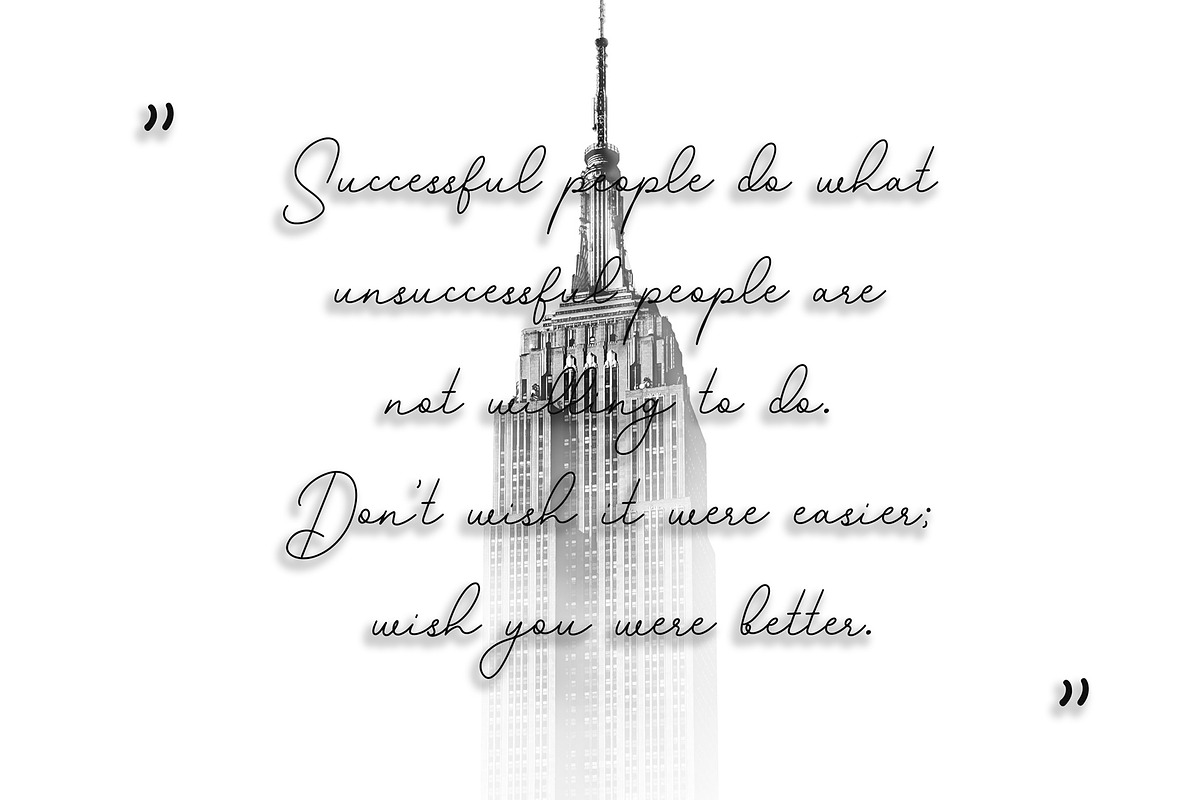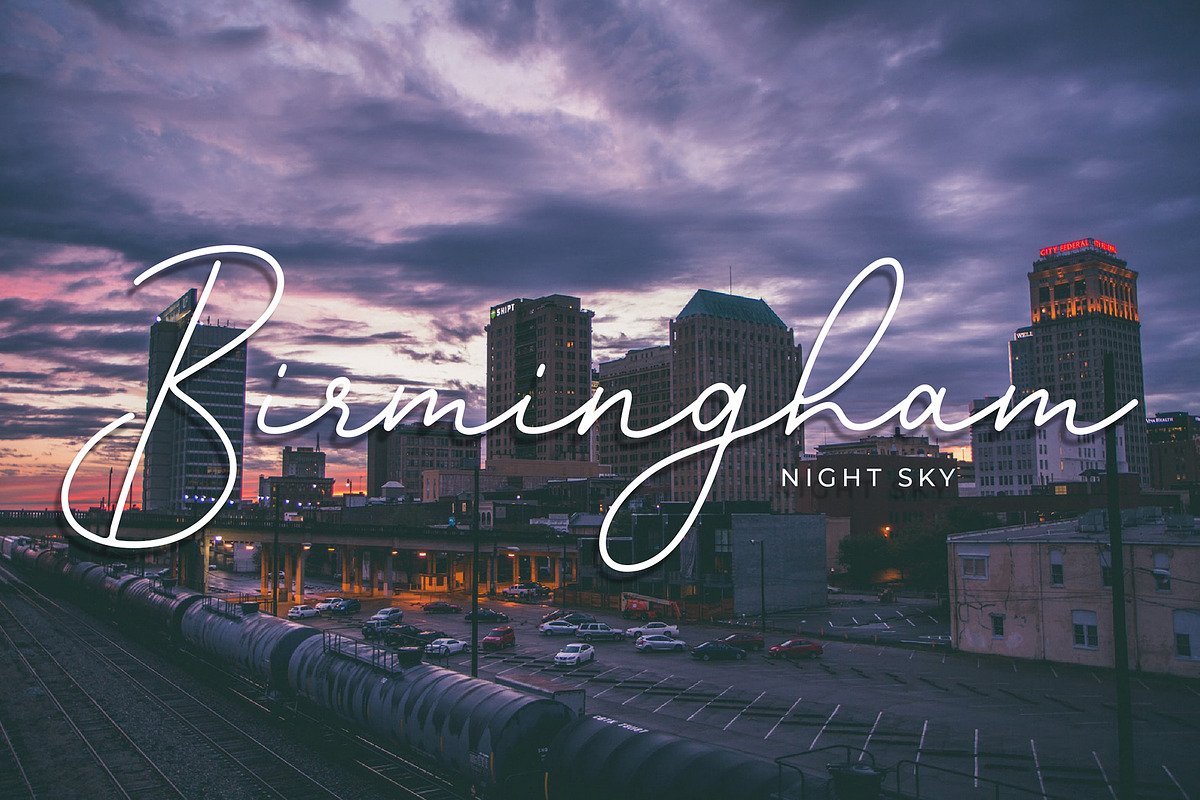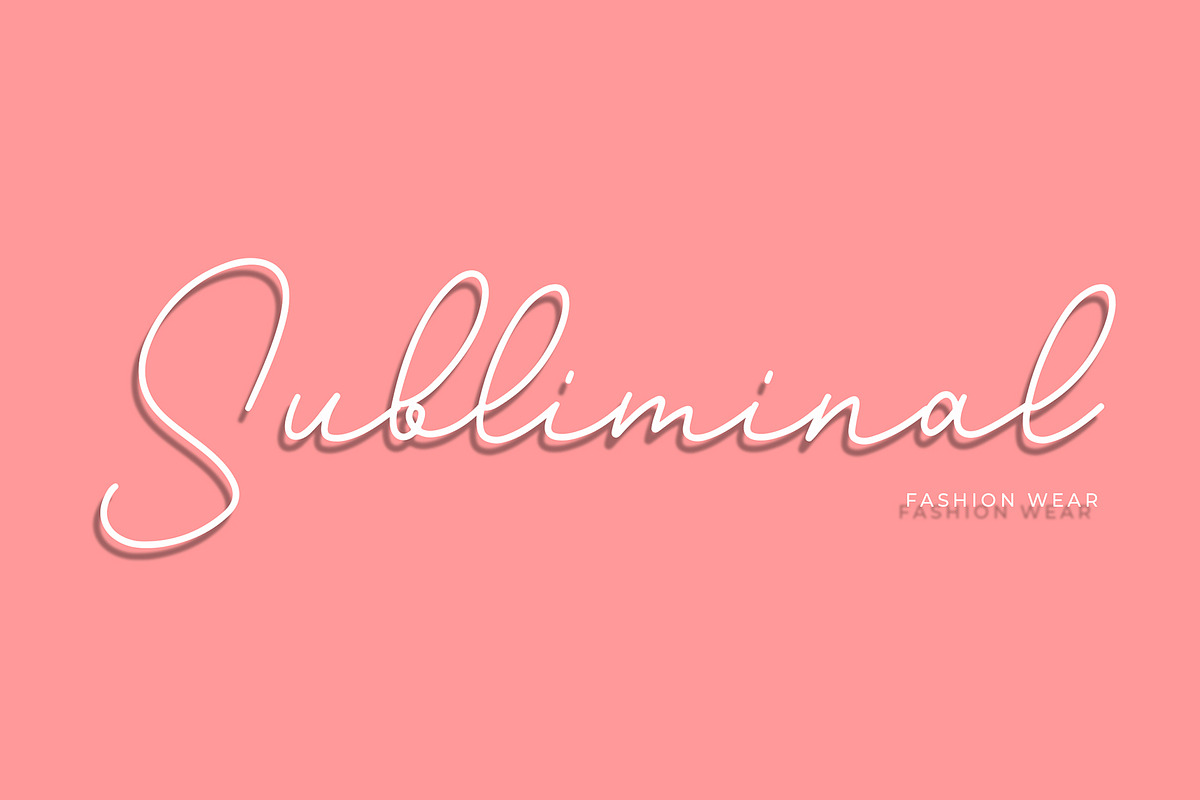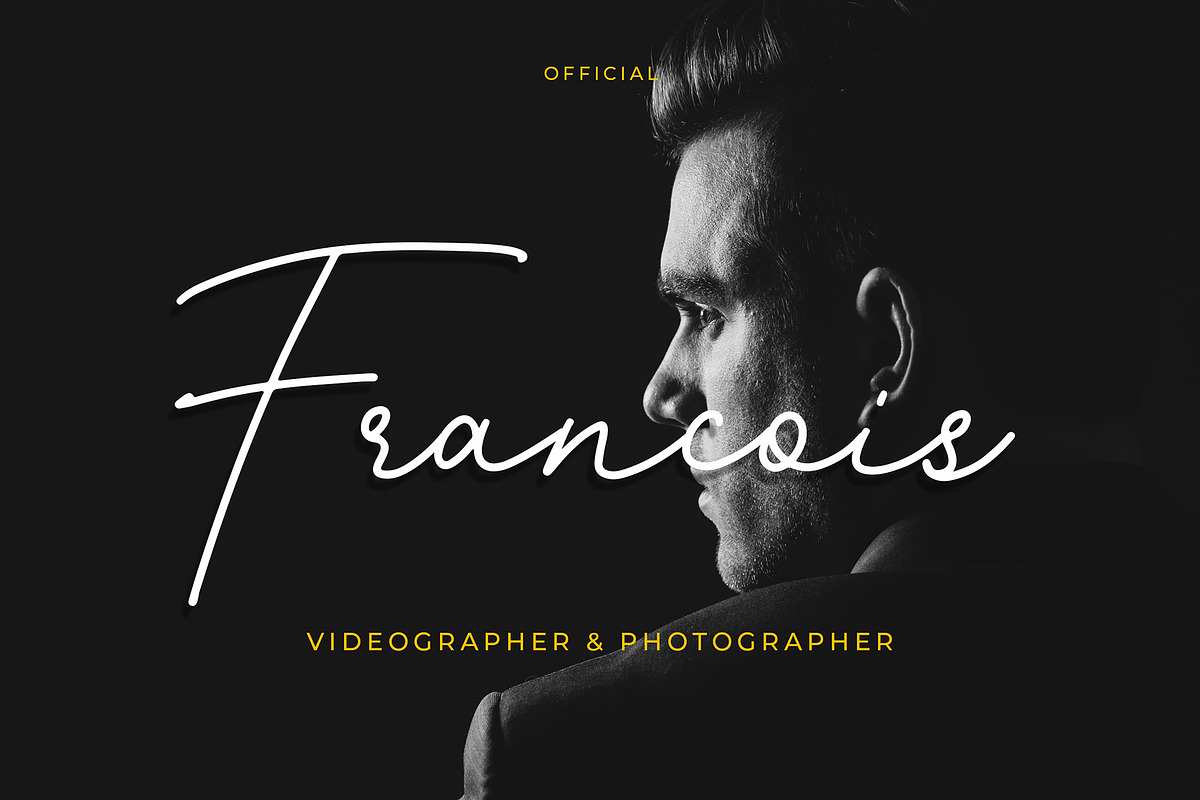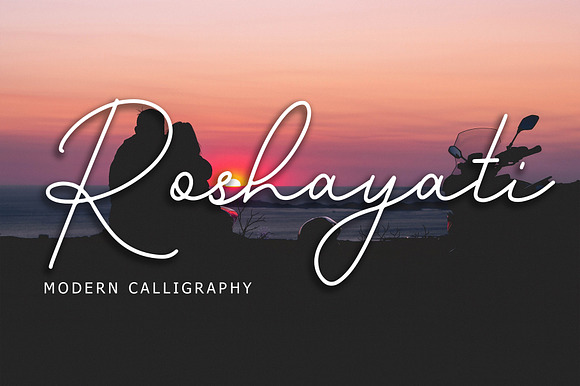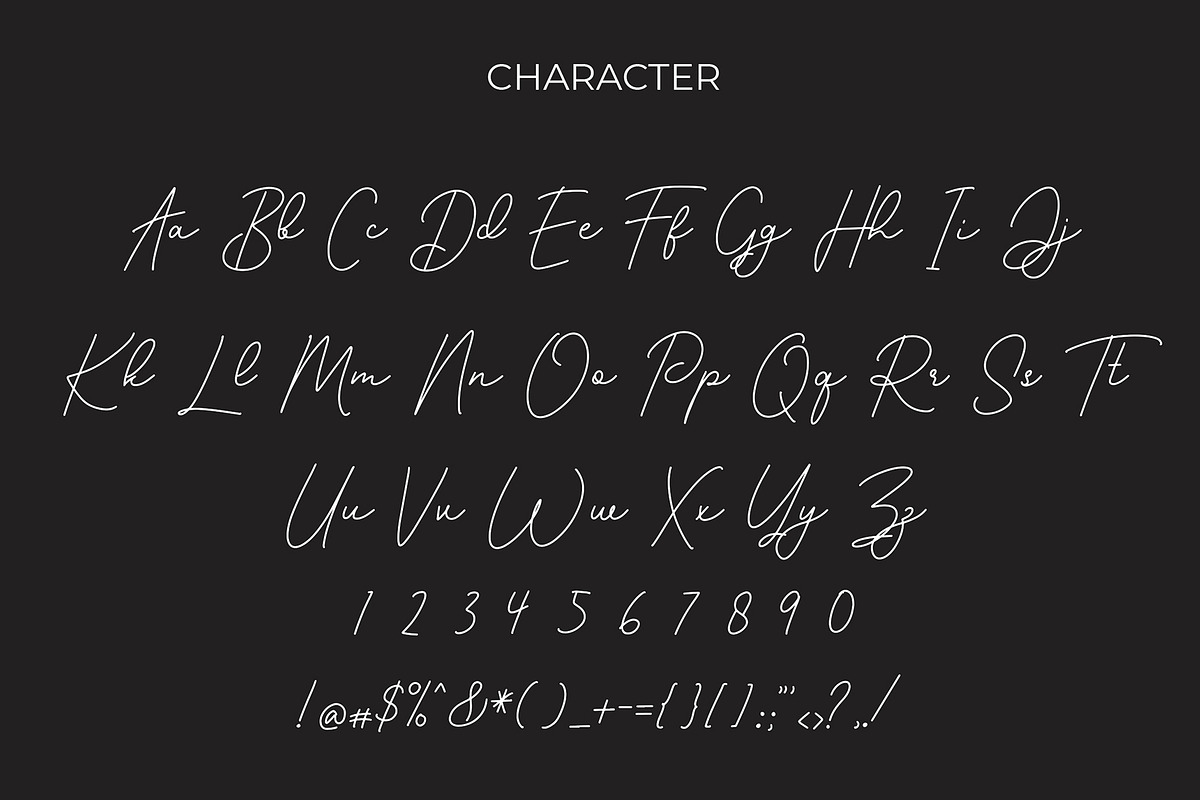
Roshayati Modern Calligraphy Font
Roshayati is the ideal font for adding an adventurous and authentic feel to your next design idea!
Roshayati is perfect for branding projects, logo, wedding designs, social media posts, advertisements, product packaging, product designs, label, photography, watermark, invitation, stationery and any projects.
Why Roshayati Modern Calligraphy Font is worth a look
Roshayati Modern Calligraphy Font by Formatika Studio fits naturally into Branding, posters, packaging, typography.